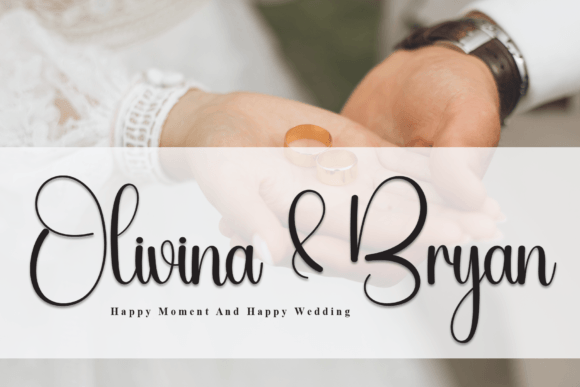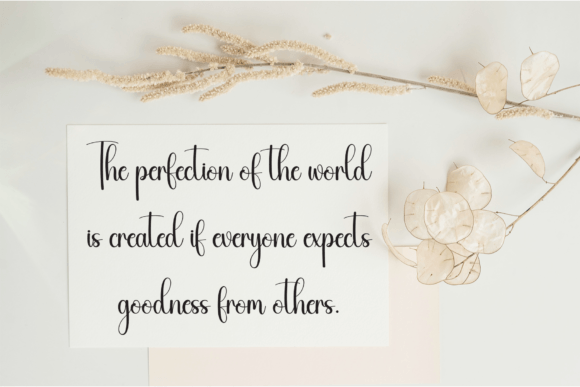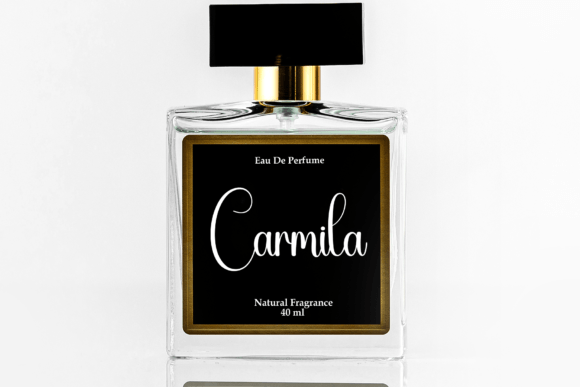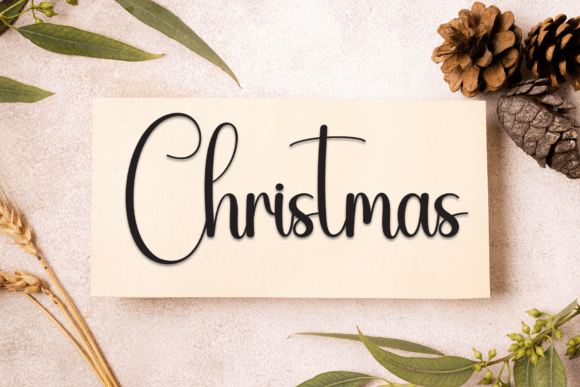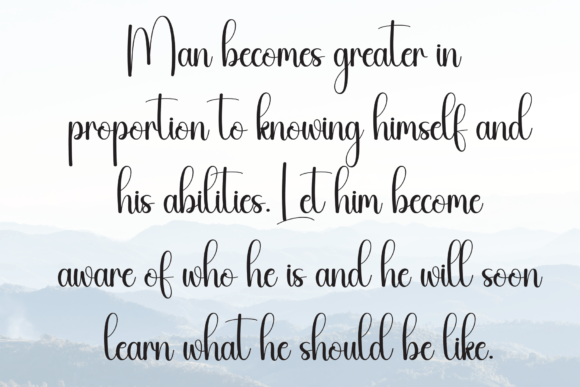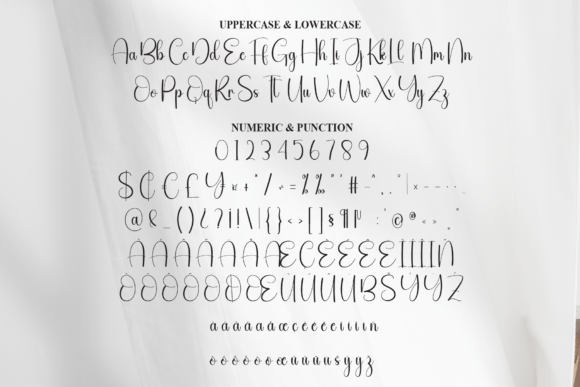
The Ultimate Guide to Everything Font: Adding a Personal Touch to Your Designs
I’ll never forget the time I was working on a project for a client’s birthday party invitation. I had all the design elements in place – the colors, images, and layout – but something was missing. The font I was using just didn’t feel right; it was too formal, too stiff. I needed something that would capture the playful, casual vibe of the party. That’s when I stumbled upon the Everything Font. It was like a breath of fresh air – natural, flowing, and effortlessly charming. In this article, I’ll share my experience with the Everything Font, its features, and how to make the most of it in your designs.
An Honest Review of Everything Font
- ✅ The casual, handwritten style that adds warmth and authenticity to any design
- ✅ The natural, flowing strokes that give it a relaxed and friendly vibe
- ✅ The versatility – perfect for personal projects, social media, and invitations
- ✅ The easygoing style that makes it easy to pair with other fonts and design elements
- ⚠️ Limited use in formal or professional designs – it’s best suited for casual, creative projects
- ⚠️ May not be the best choice for very long texts or paragraphs – it’s more suitable for headings, titles, and short messages
The Story Behind Everything Font
The Everything Font was designed with the intention of creating a typeface that would capture the essence of casual, everyday communication. The designer wanted to create a font that would feel like a handwritten note or a text message from a friend. With its natural, flowing strokes and relaxed vibe, the Everything Font has become a popular choice for designers and crafters looking to add a personal touch to their projects.
Q: What is the Everything Font best suited for?
A: The Everything Font is ideal for personal projects, social media, and invitations that require a casual, friendly vibe.
Q: Is the Everything Font suitable for long texts or paragraphs?
A: While the Everything Font can be used for longer texts, it’s best suited for headings, titles, and short messages.
Q: Can I use the Everything Font with other fonts?
A: Yes, the Everything Font can be paired with other fonts to create a unique and interesting design. Experiment with different font combinations to find the perfect match.